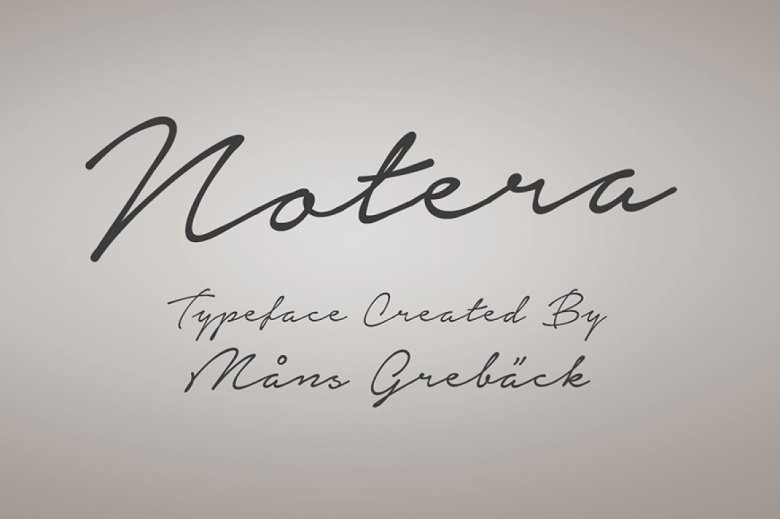
Notera Font
Notera is a handwritten script font that was designed by Mans Greback a Swedish famous type designer. This font was downloaded over 1.9 Million time on Dafont.com and a top popular font of the designer. Handwriting signature script font.
Notera Free Handwritten Script Font